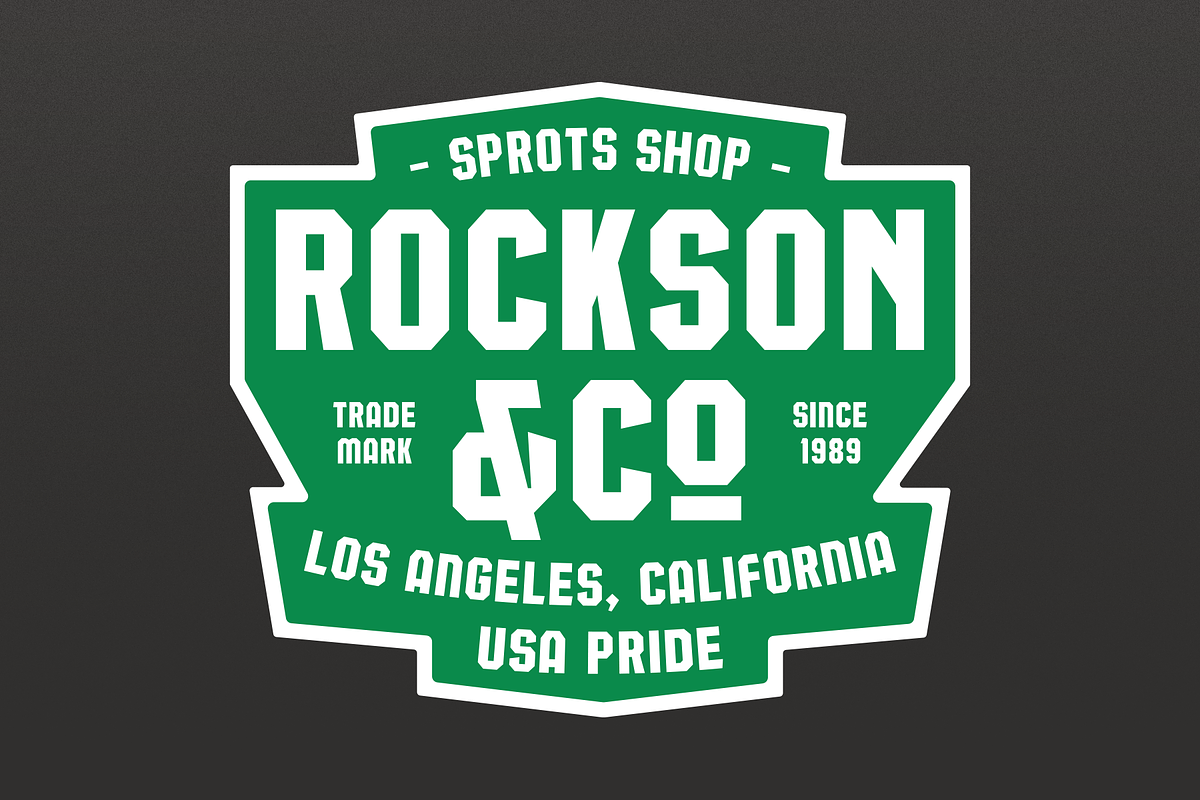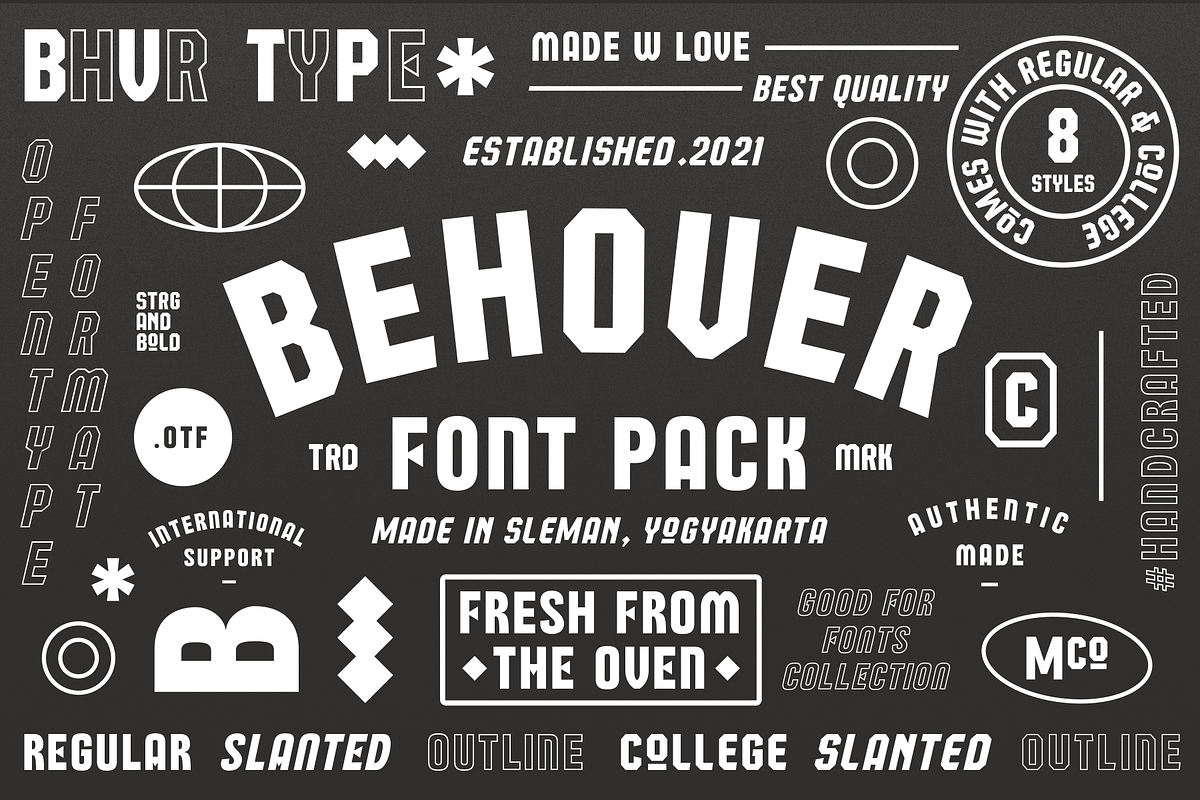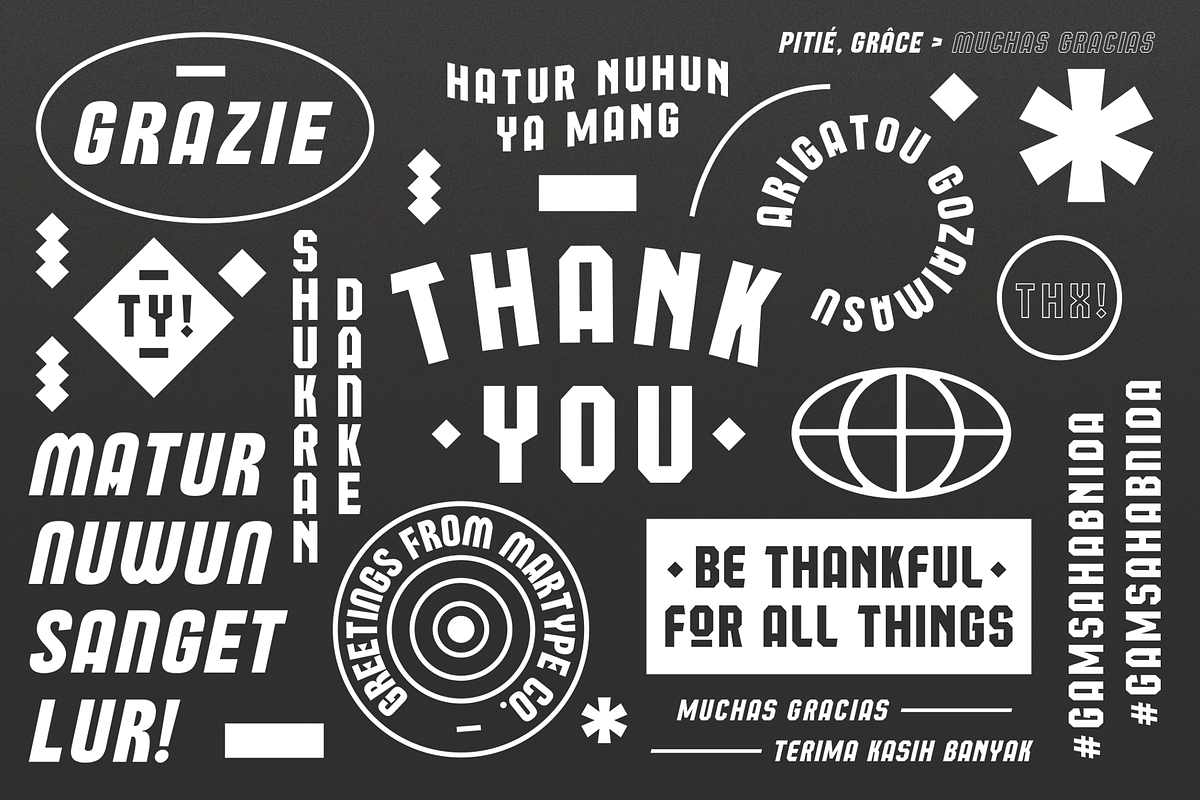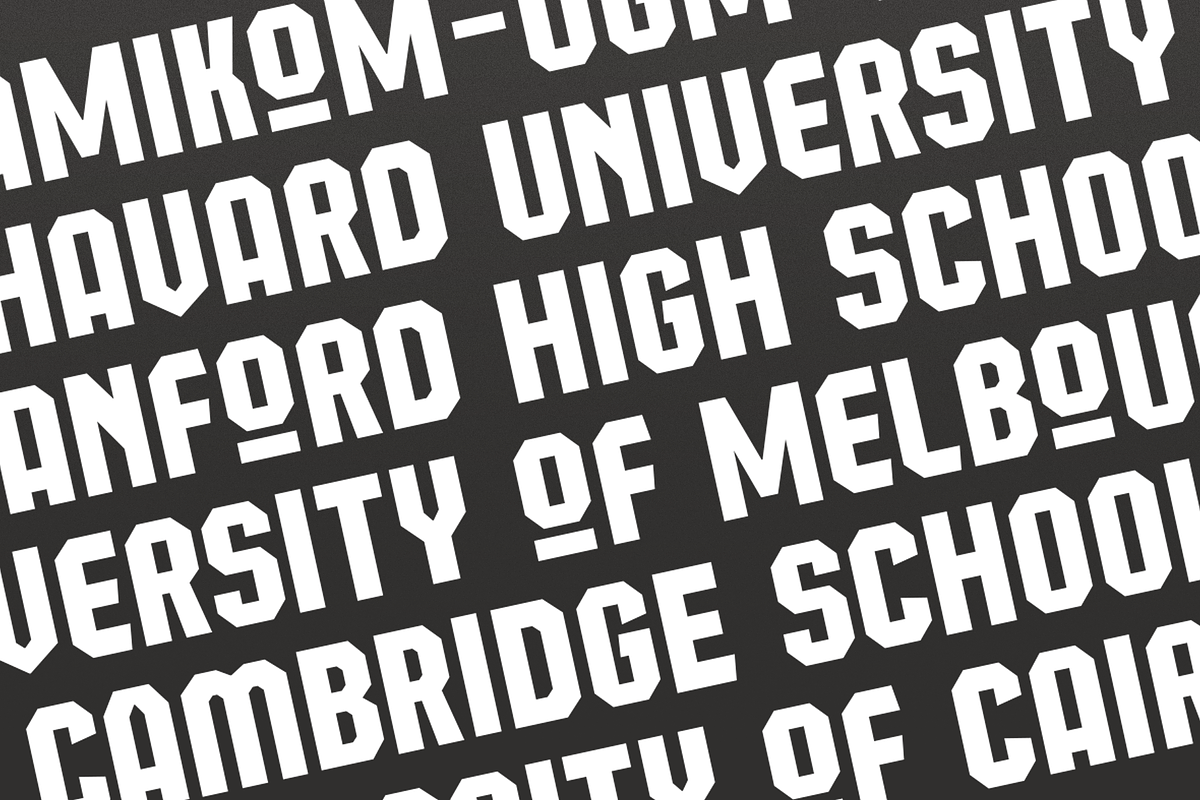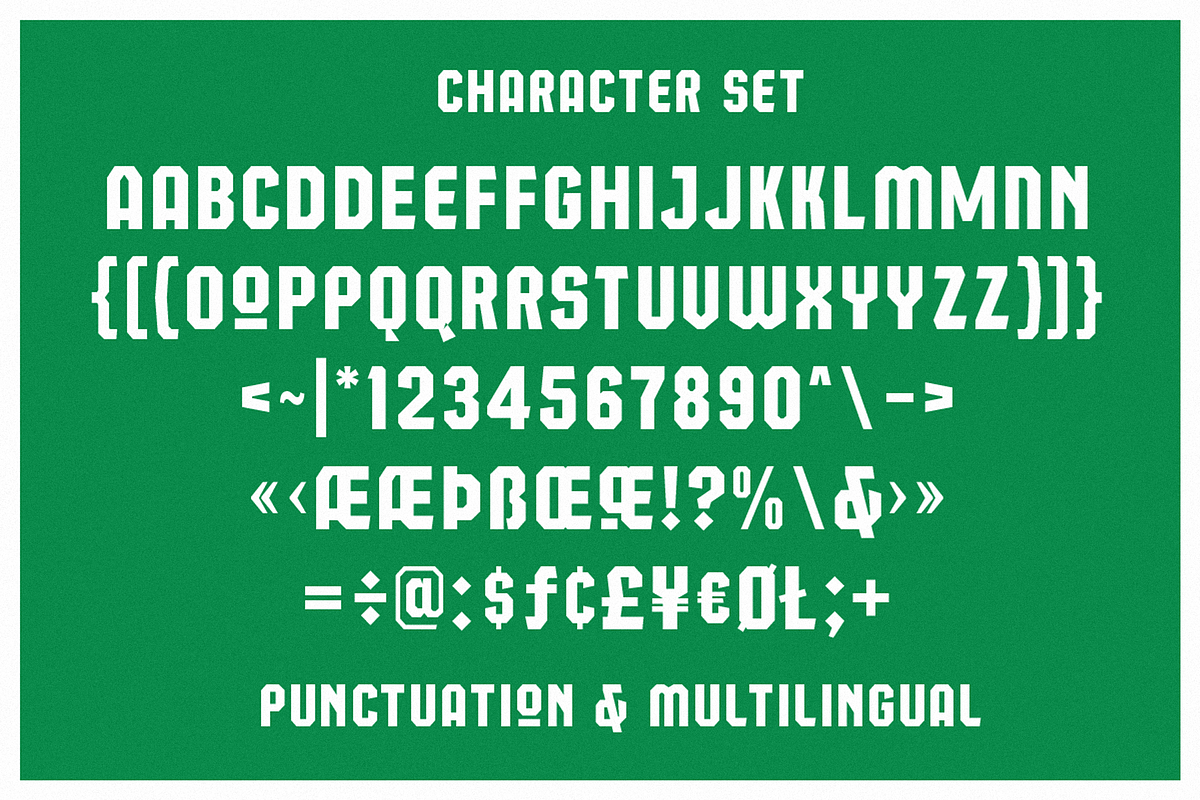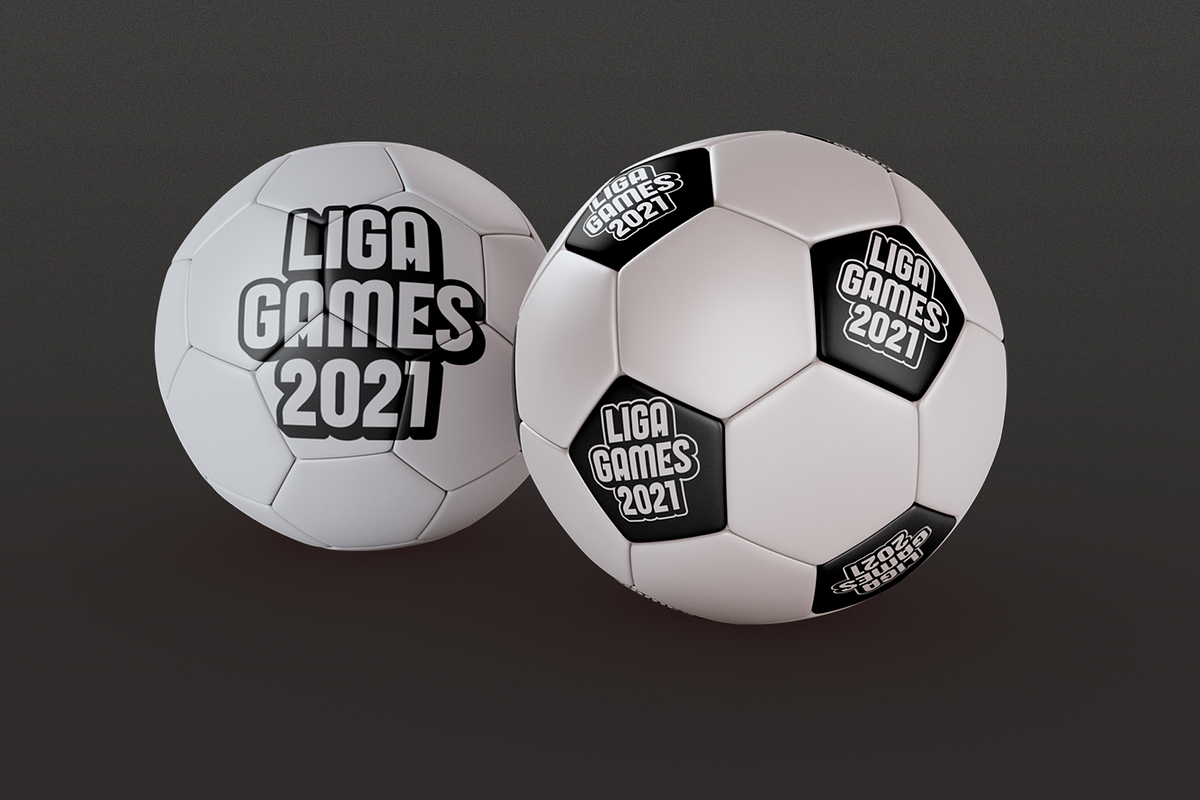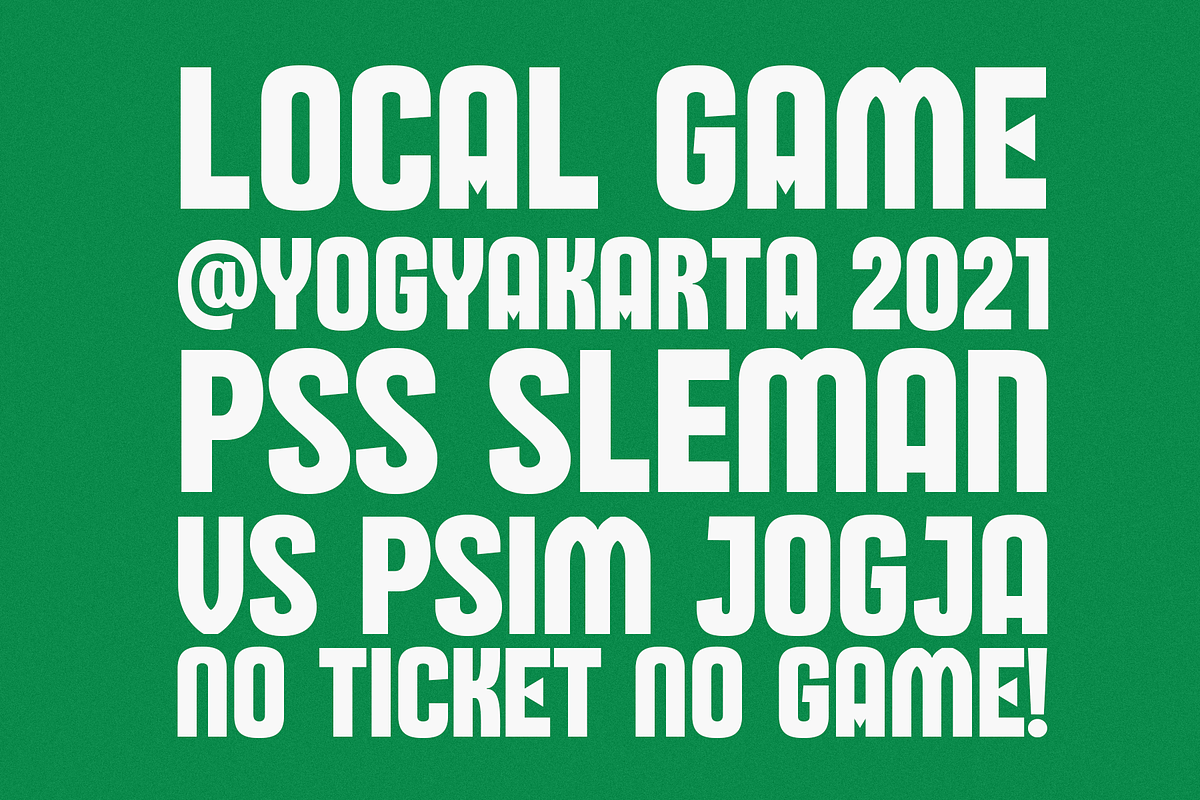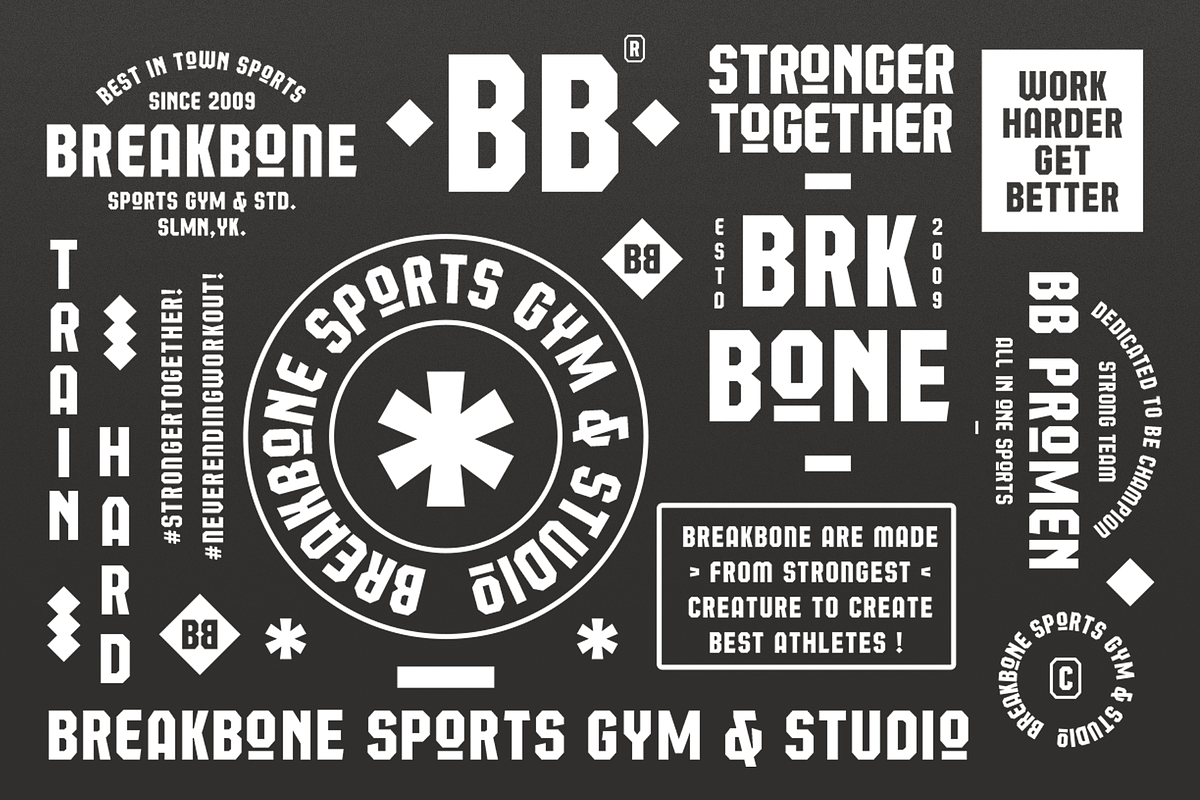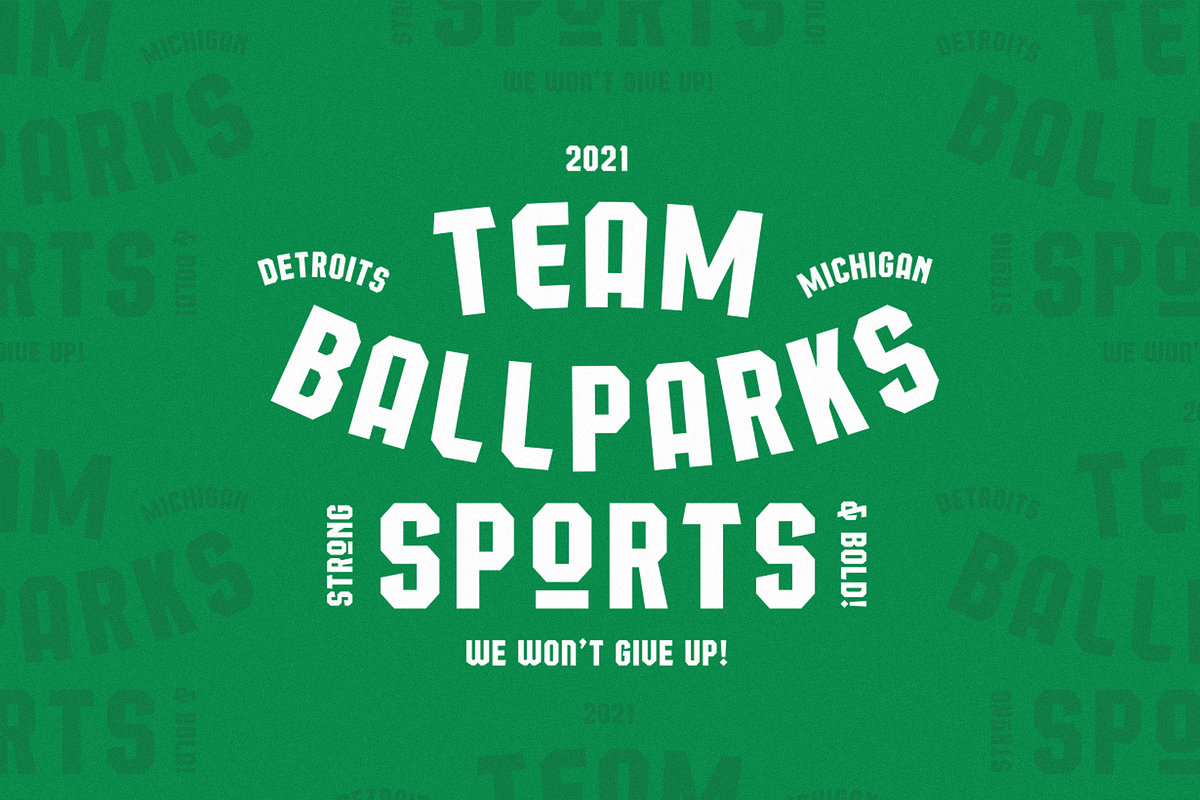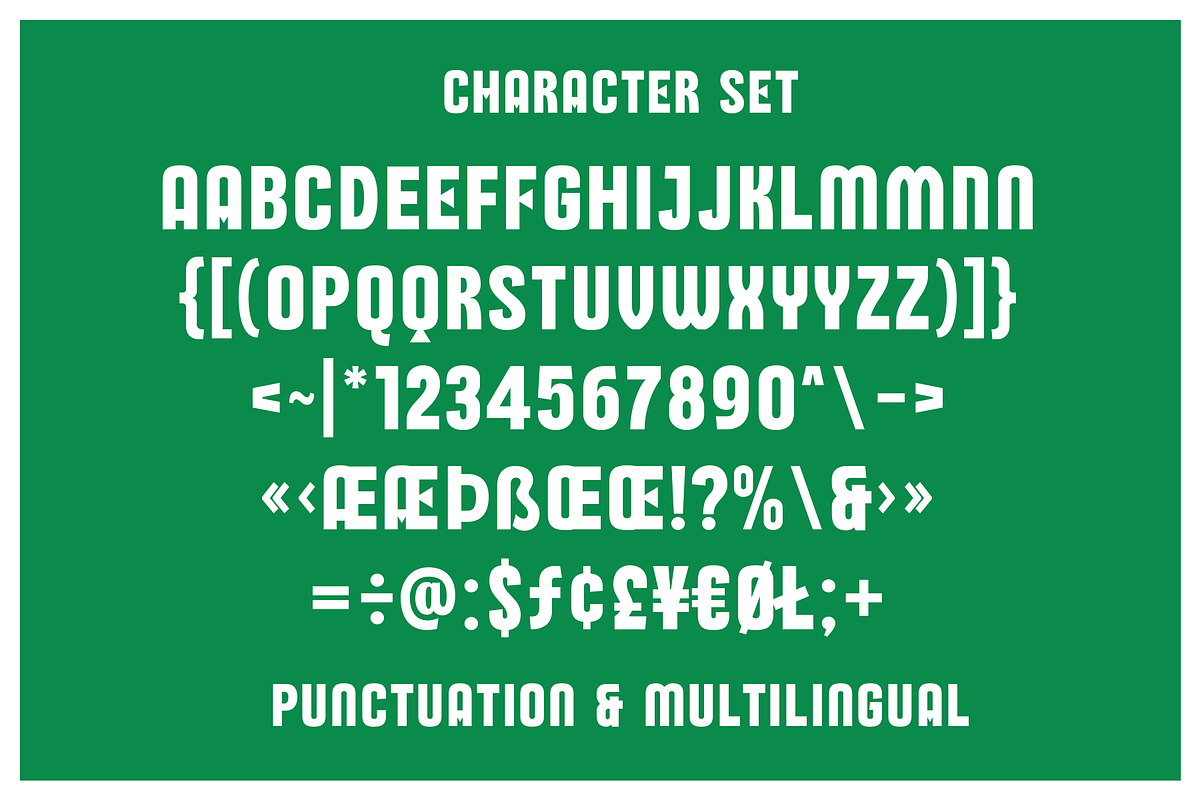
Introducing Behover Font Pack, the bold and strong character in every letters to make variable style typograhpic design. This fonts comes with 8 styles typefaces to complete your design story, perfect for your sports team, logotype, branding, gaming logo, and badges.
Support for 67 languages Afrikaans, Albanian, ,Basque, Bemba, Bena, Breton, Catalan, Chiga, Cornish, Danish, Dutch, English, Estonian, Faroese, Filipino, Finnish, French, Friulian, Galician, German, Gusii, Indonesian, Irish, Italian, Kabuverdianu, Kalenjin, Kinyarwanda, Luo, Luxembourgish, Luyia, Machame, Makhuwa, Meetto, Makonde, Malagasy, Manx, Morisyen, North, Ndebele, Norwegian, Bokmål, Norwegian, Nynorsk, Nyankole, Oromo, Portuguese, Quechua, Romansh, Rombo, Rundi, Rwa, Samburu, Sango, Sangu, Scottish, Gaelic, Sena, Shambala, Shona, Soga, Somali, Spanish, Swahili, Swedish, Swiss, ,German, Taita, Teso, Uzbek (Latin), Volapük, VunjoZulu,
- Behover
- Behover College
- Behover Slanted
- Behover College Slanted
- Behover Outline
- Behover College Outline
- Behover Outline Slanted
- Behover College Outline Slanted